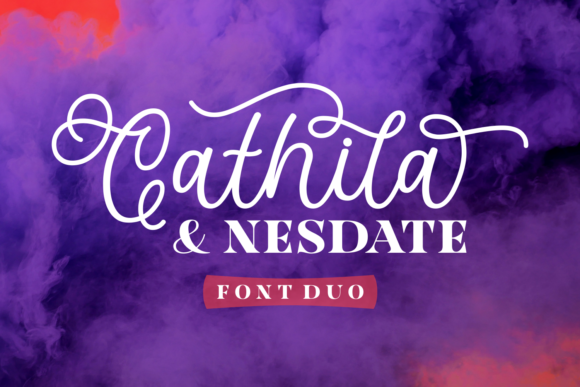
Cathila Nesdate Font
The Cathila Nesdate Font Duo is a beautiful combination of a hand-crafted script font and a neat, playful serif font. Together, they offer a versatile and elegant solution for a wide range of creative projects. Whether you're designing invitations, labels, or digital printables, this font duo adds a touch of personality and professionalism to your work.
Perfect for Handmade and Creative Projects
Crafters and small business owners will find the Cathila Nesdate Font Duo incredibly useful. Its script font, Cathila, brings a sense of warmth and elegance, while the serif font, Nesdate, offers clarity and structure. This pairing makes it ideal for everything from wedding stationery to product packaging, giving your designs a polished and cohesive look.
For handmade sellers, the fonts are especially valuable when creating printable products, labels, or SVG-style designs. They can be used on mugs, tote bags, and signs, making your products stand out in a competitive market. The combination of a flowing script with a structured serif allows for creative flexibility without sacrificing readability.
Practical Applications for Crafters
Using Cathila Nesdate in your craft projects can elevate the visual appeal of your work. For example, candle labels, birthday invitations, or farmhouse signs can all benefit from the font's charm and style. The script font works well for names, titles, or decorative elements, while the serif font is perfect for body text or longer phrases.
When designing for physical products like stickers or product tags, it's important to ensure that the font remains legible at smaller sizes. Cathila Nesdate handles this well, making it suitable for use on small surfaces without losing its character. This makes it an excellent choice for product labels, tags, and even custom signage.
Enhancing Brand Identity and Customer Appeal
A consistent and appealing font choice can significantly impact how customers perceive your brand. The Cathila Nesdate Font Duo helps create a cohesive visual identity across your products, whether you're selling on Etsy, running a boutique, or offering digital downloads. Its stylish yet readable nature ensures that your branding feels professional and approachable.
By using these fonts in your design assets, you can build recognition and trust with your audience. Customers are more likely to remember and return to a brand that presents itself with care and attention to detail. The right font can make all the difference in how your products are perceived and valued.
Font Pairing Ideas for Creative Projects
Pairing fonts effectively can enhance the overall design of your work. The Cathila Nesdate Font Duo is naturally suited for pairing with other fonts that complement its style. For instance, combining the script font with a clean sans serif can create a modern and balanced look, while pairing it with a bold display font can add emphasis and drama.
When working with cutting machines like Cricut or Silhouette, the fonts' clarity and consistency are essential. They ensure that your designs cut accurately and maintain their aesthetic appeal. This makes them a reliable choice for creating custom stickers, wall art, and other printed materials.
Why Choose Cathila Nesdate?
The Cathila Nesdate Font Duo is more than just a set of fonts—it's a powerful tool for creators who value both aesthetics and functionality. Its blend of a flowing script and a refined serif offers endless possibilities for crafting, branding, and design. Whether you're making greeting cards, wedding invitations, or custom merchandise, this font duo provides the versatility and beauty needed to bring your ideas to life.
From seasonal craft designs to everyday product labels, Cathila Nesdate adds a personal touch that resonates with customers. Its thoughtful design and practical application make it a must-have for any creative project that requires a touch of elegance and charm.